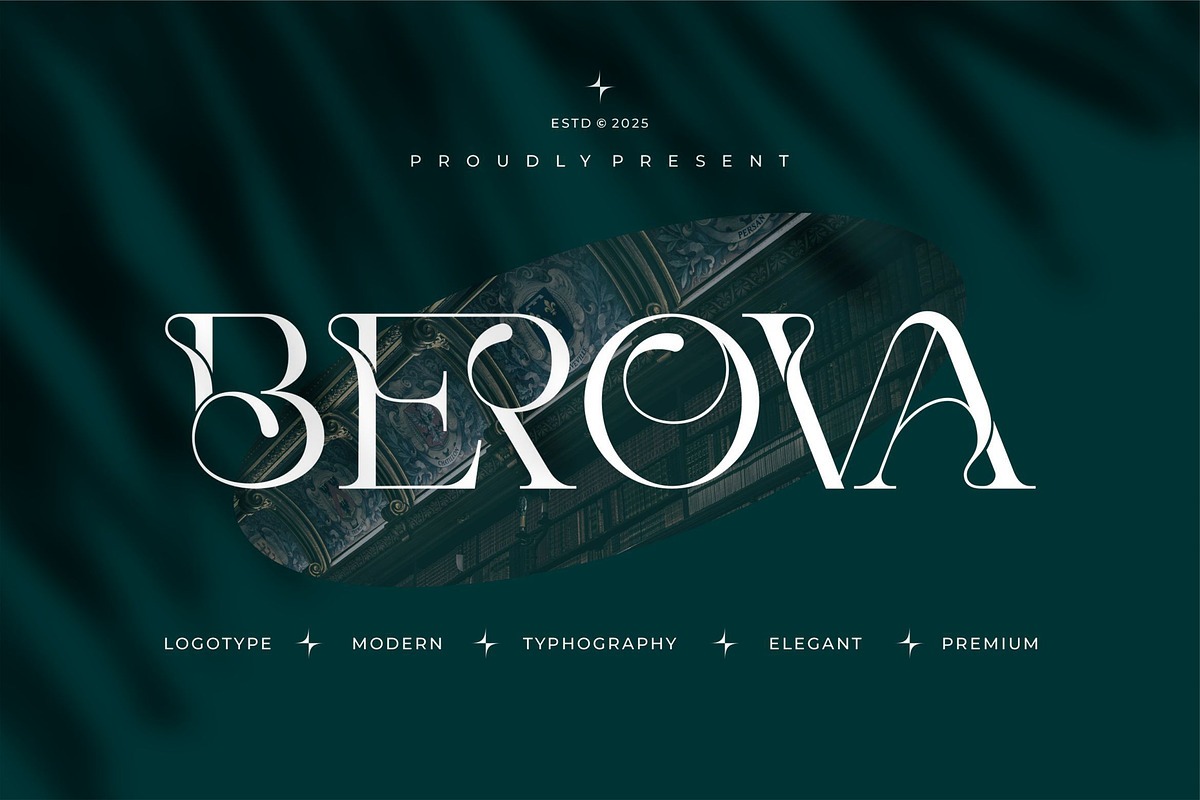
Berova Font
Berova Font is a distinctive and expressive font crafted to bring personality, structure, and creative energy into your projects. Berova Serif is a modern and classy font type for all branding and logo designs. This modern and classy Serif font has a beautiful character. This font is suitable for invitation card designs, cool logos, movie titles, movie names, business cards, book titles, brand names, and various other designs. Berova Serif is a smooth serif font that exudes sophistication and the moment. Its stylish ligatures make this font a perfect partner for any project.